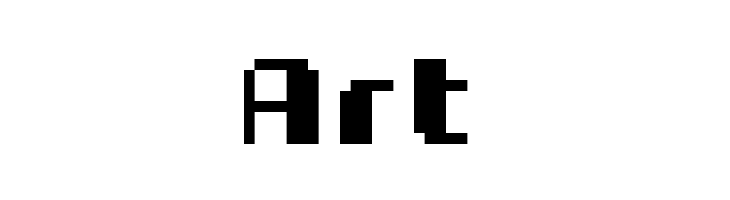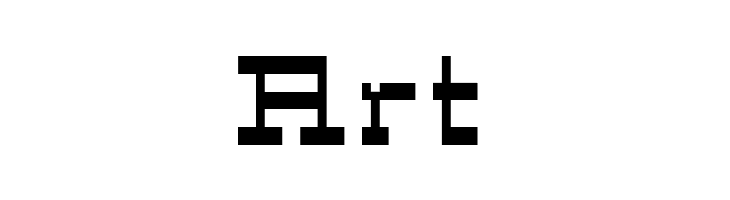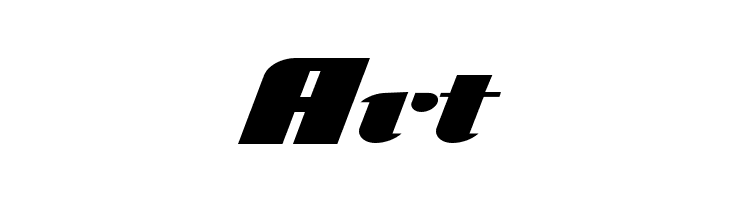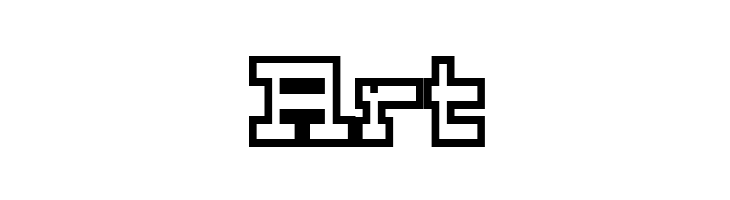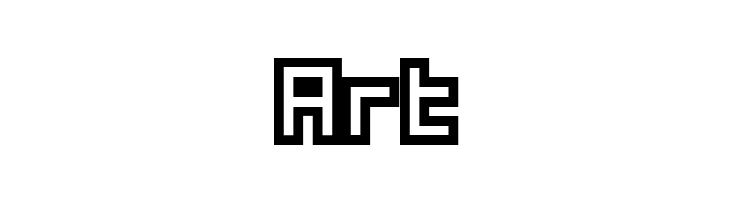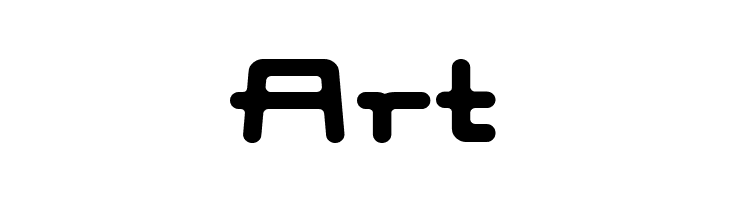
A pixelated, retro-style font inspired by early digital displays.
A pixelated, geometric font inspired by retro digital displays.
A bold, italicized font with high contrast and a modern style.
A pixelated, retro-style font with bold, blocky lines and a grid-like pattern.
A bold, dynamic font with a slight slant and rounded edges.
A bold, dynamic font with a slightly condensed and slanted style.
A modern, slightly slanted font with elongated, rounded characters.
A bold, rounded, and geometric font with a modern, futuristic style.